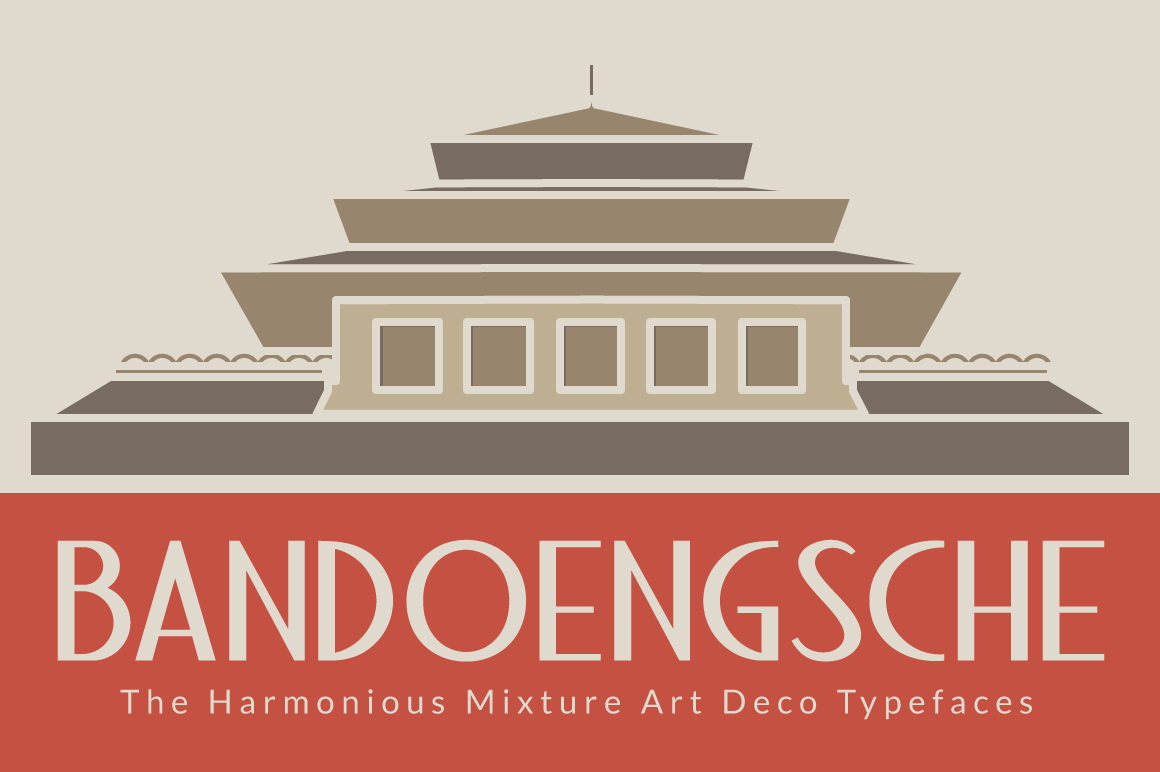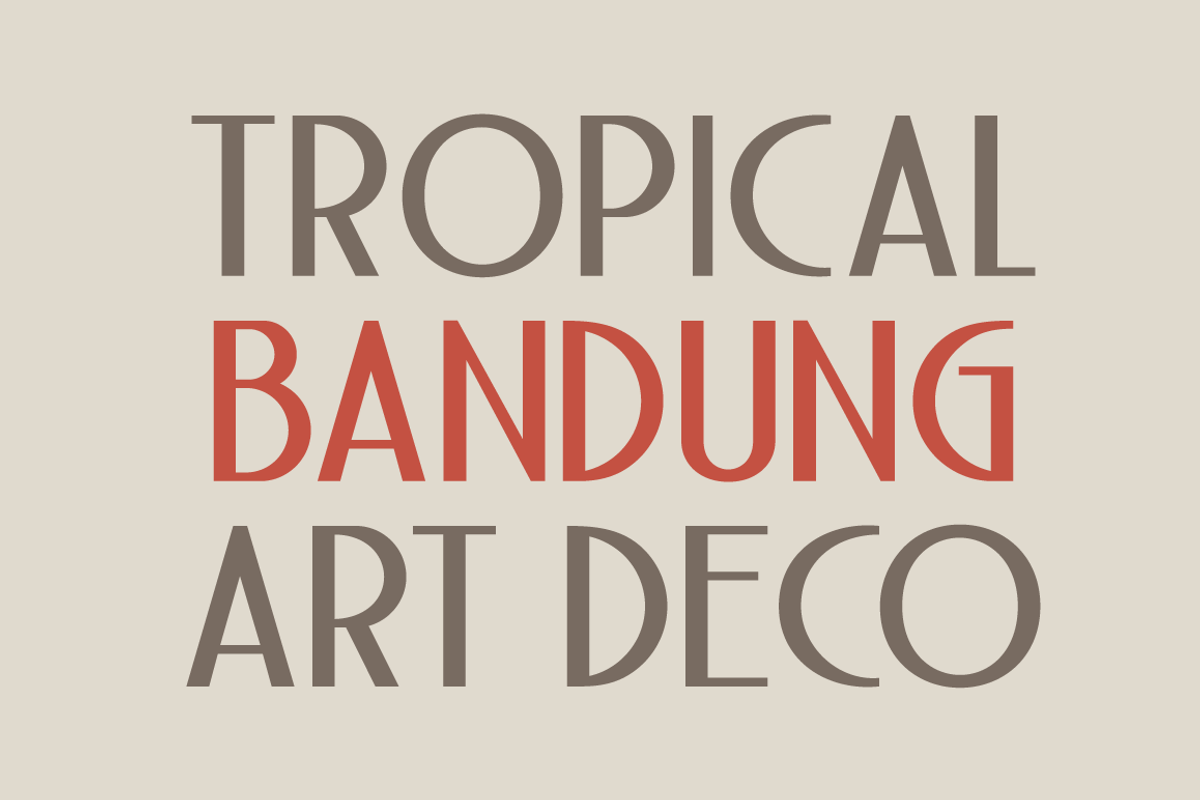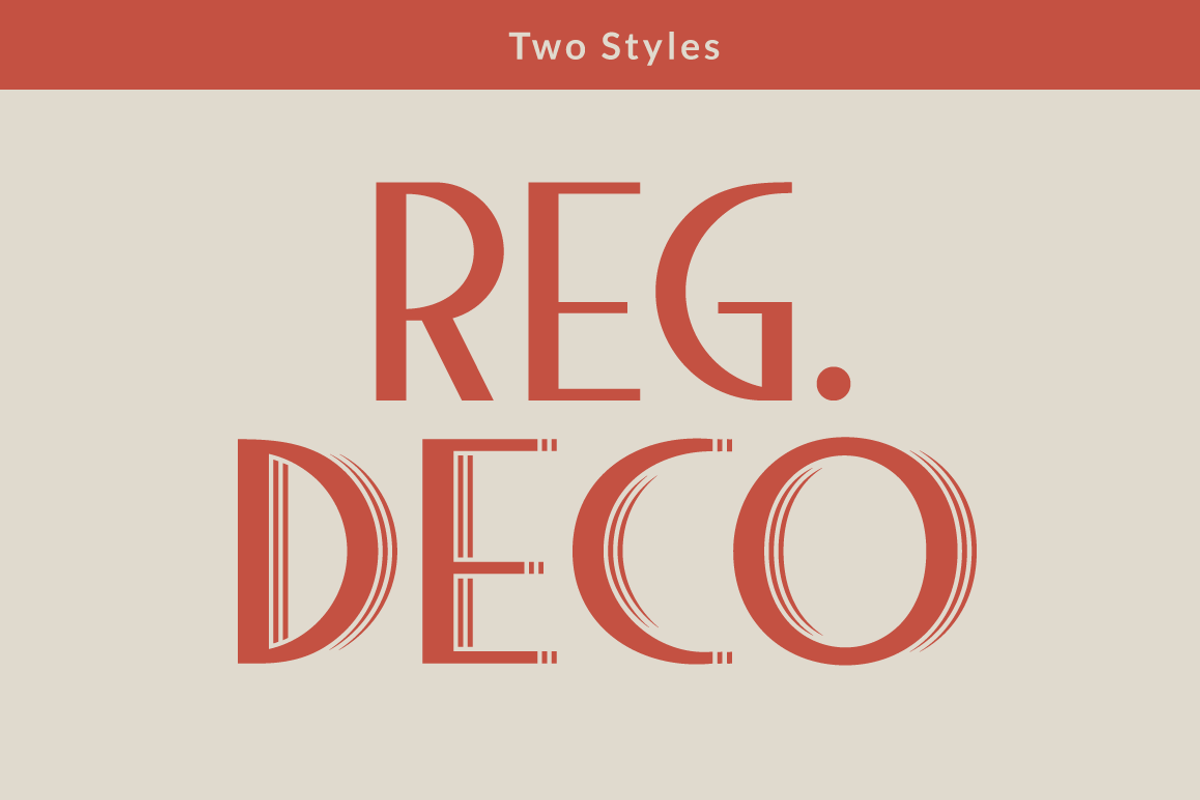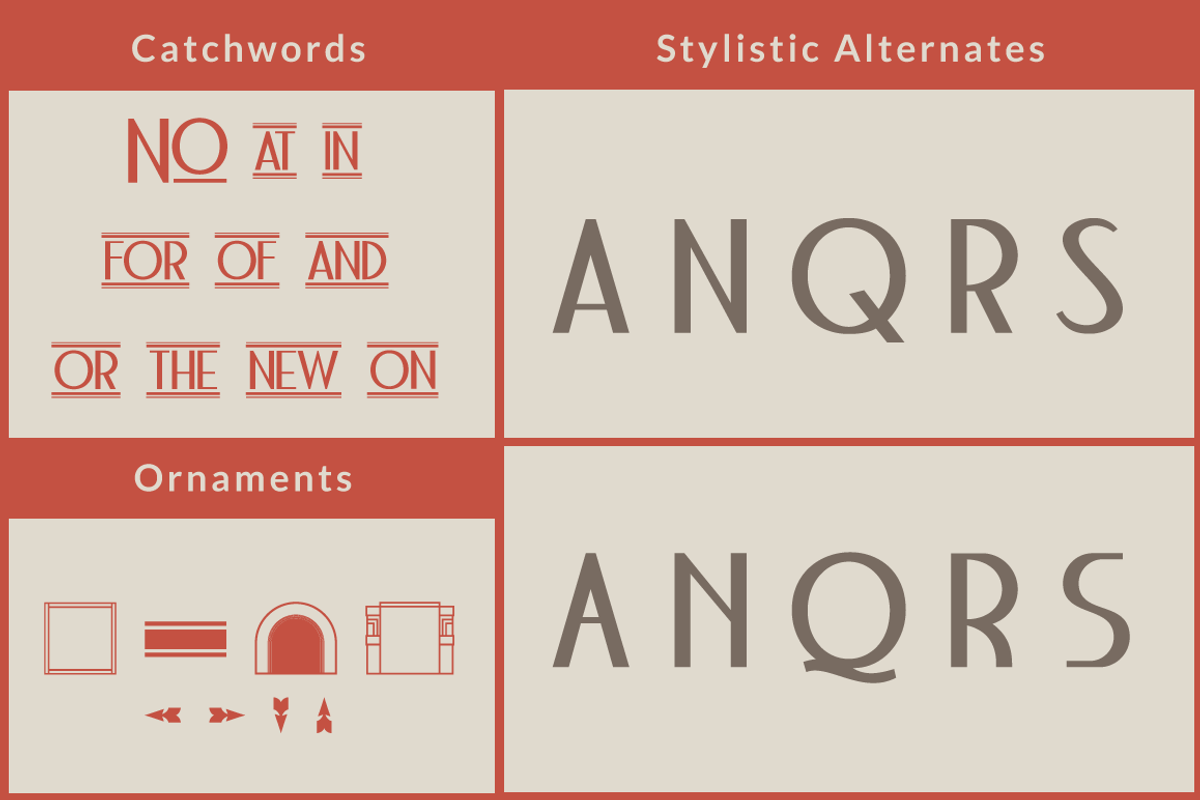
Bandoengsche Typeface
Bandung is home to numerous examples of Dutch colonial architecture, most notably the tropical Art Deco architectural style. This typeface was adapted from the finest Art Deco landmarks and signage in Bandung, Indonesia and strongly added native elements of traditional Art Deco typefaces style. The main character is an example of a harmonious mixture between West and East architectural styles, repackaged into the Art Deco type design.
With two different styles, it comes as regular and Deco styles, the regular style is constructed with all caps setting, with some different characters between uppercase and lowercase. The Deco style uses more stripes in the right shapes, it was naturally inspired with the most common art deco typefaces.
The additional Opentype Features loaded in this typeface; some stylistic alternates, accessible catchwords in the discretionary ligatures, and the art deco ornaments, This typeface is highly usable with large scaling size and will fit with posters, movie titles, and signage designs.